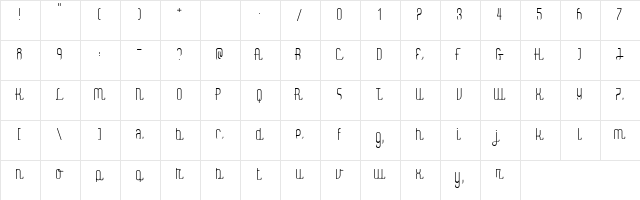
Digital Kauno fenotype
Design Context for Digital Kauno Typeface
Digital Kauno channels digital-age aesthetics through its sharp, structured letterforms — ideal for brands that want to signal innovation.
Pro Tip: Use Digital Kauno in combination with a neutral sans for body text. Let it define the brand voice in headlines while keeping reading comfortable elsewhere.